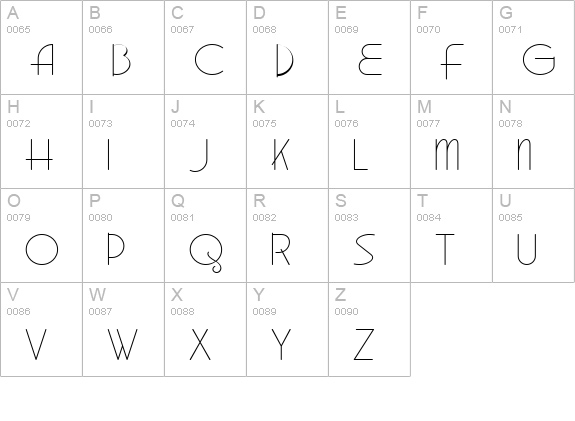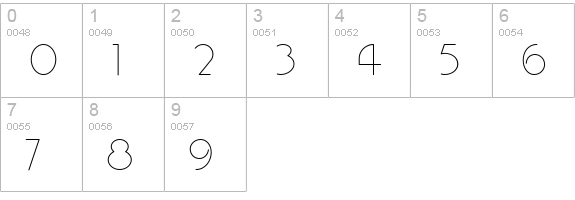
BeckerMonolineModernNF ExtraLight Font Details
BeckerMonolineModernNF ExtraLight is an airy, ultra-refined variant in the BeckerMonolineModernNF typeface family \xE2\x80\x94 well suited to minimalist headlines and refined display use.
BeckerMonolineModernNF ExtraLight font is a sleek and elegant typeface that exudes sophistication and modernity. With its delicate lines and minimalistic design, this font is perfect for creating a clean and contemporary look in your projects. The ExtraLight weight adds a touch of airiness and finesse to your typography, making it ideal for use in branding, editorial design, and any other creative endeavors where a subtle and refined aesthetic is desired. The best part? BeckerMonolineModernNF ExtraLight font is available for free download at FontsMarket.com. Simply head over to the website and get your hands on this stunning typeface to elevate your designs with its timeless appeal. Don't miss out on the opportunity to enhance your projects with this exquisite font that combines elegance and simplicity in perfect harmony.